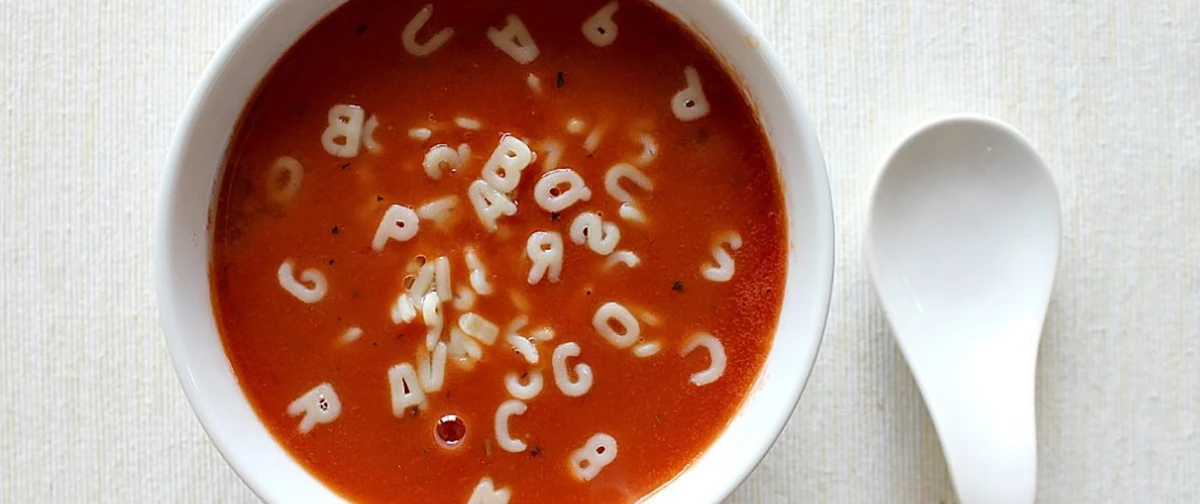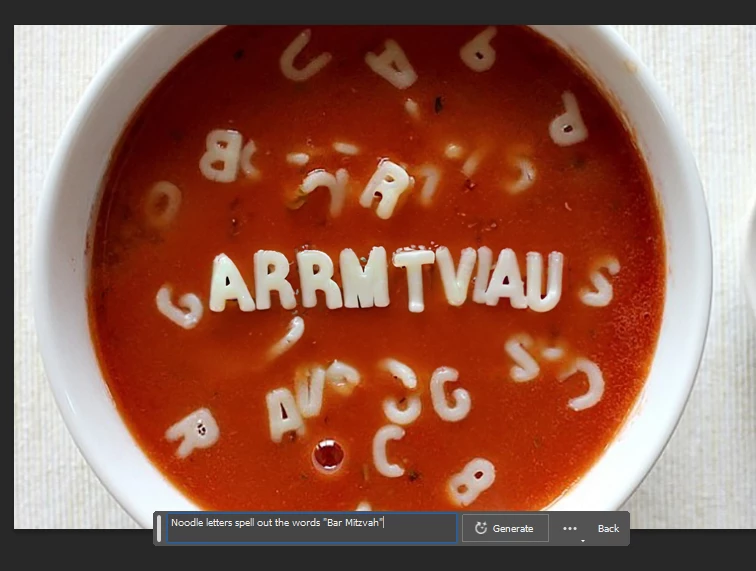
Generative AI incorporated into live type and font selection.
Let's say I want to use this image below of alphabet soup, but have it spell out a custom phrase.
Below is an example where I selected the middle portion of the soup and using Generative Fill told the AI to generate the phrase "Bar Mitzvah". You can see that it struggles with building the phrase correctly, but understood the idea that it had to use "noodle letters" to spell it out.
Because the AI was able to understand where to pull the type texture from and how to rebuild it, my thought it that it could use this information but then apply it to live type. So once you approve the AI output for how the type should look you can then create a type box and input your phrase so that the words are correct, and you can move them around in real time for placement.
Beyond this, I could then see selecting a font so that you have the aphabet soup noodle texure, a live type box with your exact phrase, and you can then tell it to keep the texture and placement but make it cursive, or serif for example.
I'm curious about where the limitation is at in the process here.
Hi @Zac12 currently this is a limitation with any AI - not just Firefly/Adobe Sensei.